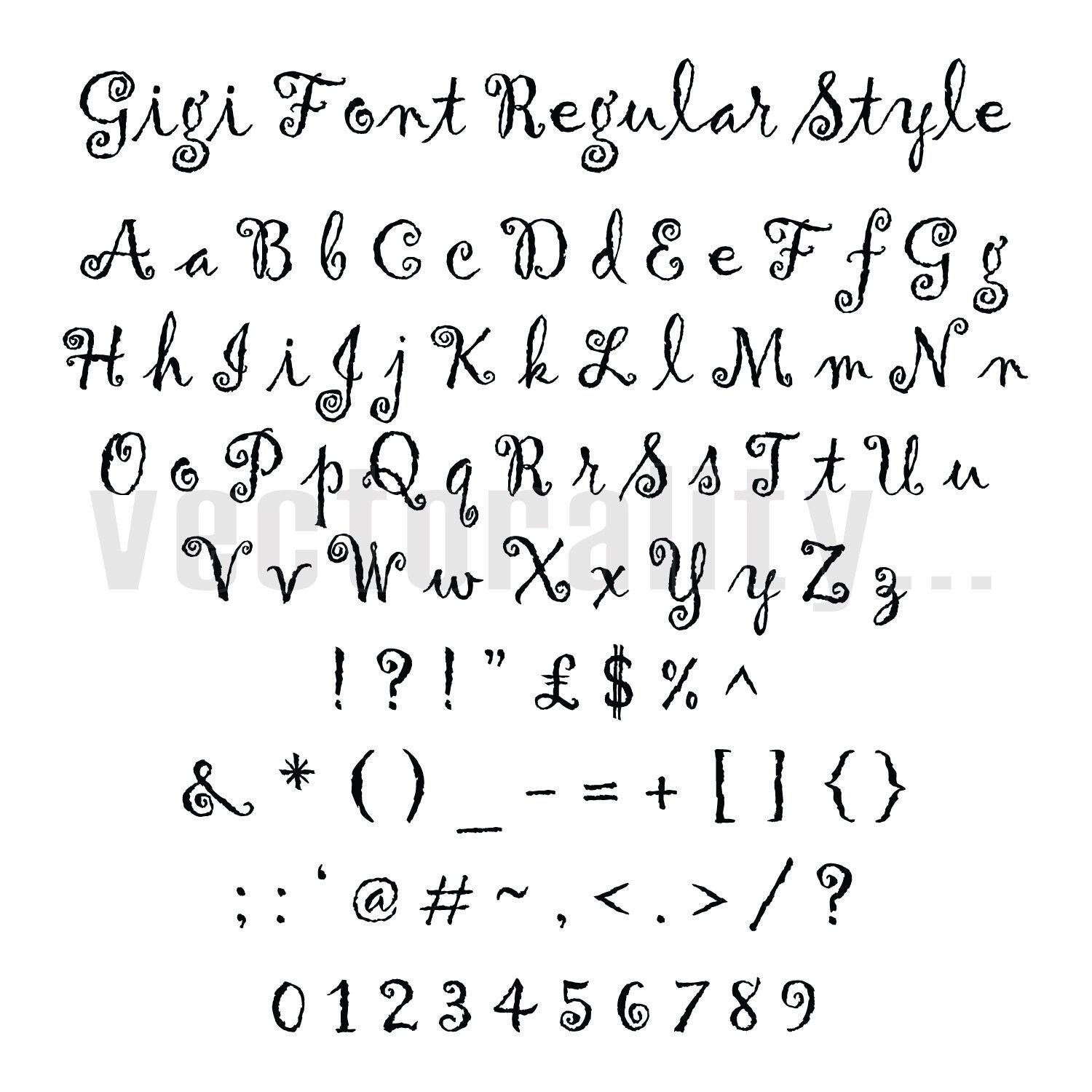
gigi Consists of 9 uprights and 9 matching italics ranging from Thin to Black. Font Type: TrueType. The number of glyphs (characters) of the font Gigi Regular - 249. Buy and Download the Gigi‚ font for Mac or Windows in OpenType, TrueType or PostScript format. Gigi Font la famille était conçu par Jill Bell et publié par ITC.Balises :Gigi Font DownloadBest Gigi FontTypeface IdentificationFontForge5/5Download Gigi Font
Ses caractéristiques informelles et son abondance de surprises en font un charmant police, avec la spontanéité de l'écriture manuscrite.About the font Gigi.Font Gigi Regular belongs to the categories Various. in Fancy > Cartoon.Download Gigi font free! More than 50000 fonts to download for free - FontZone. Latest Fonts; Categories. Besides being suitable for strong headlines, Giga Sans can also be used for long paragraphs such as news content, magazines, .Balises :Gigi Font DownloadGigi GuitarBrand:En Enra This font has 1 variant available. THIS FONT IS DEMO ONLY.Gigi Regular is a Regular TrueType Font. Gigi™ par ITC.TTF for free, availble for windows and mac in truetype and opentype format. Styles (3) Character Maps.5/5
Its informal features and abundance of surprises make it a charming font, with the spontaneity of. Gigihandwriting. Download Donate to author. Also, the Gigi font is perfect for branding projects, housewares designs, product packaging, or simply as a . Fonts are in ttf, otf format and with direct download link and preview. Check it for free with Typograph.Graffiti Urban à € by Nirmana Visual.Download the Gigi font for free for your project at FontsForYou. GIGI Guitar Score Chord Font is an original font that allows you to create chord scores as if you were entering text using the ligature of the font.Gigi by Jill Bell: Download—The font meta search engine with more than 50,000 font styles to find and order.g Gigi Putih by wep.Gigi Font: Gigi is the work of California artist Jill Bell. Giga Sans’ nine uprights and nine matching italics range from thin to black for easy customization of headlines or long paragraphs in news material, magazines, brochures catalogs logotypes etc.Click Here to Login